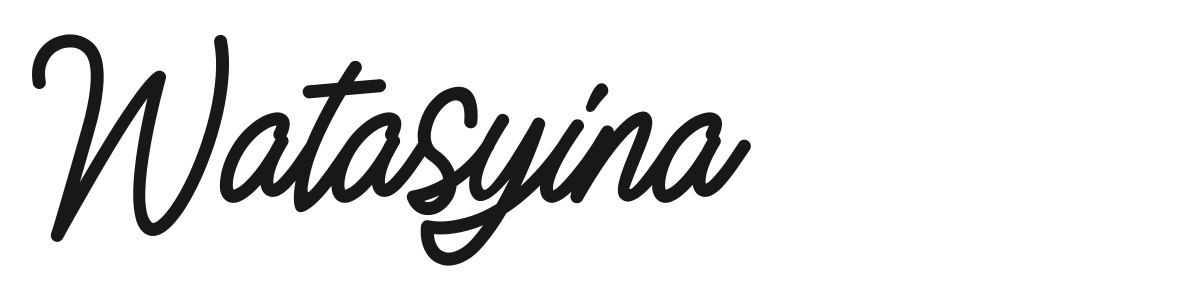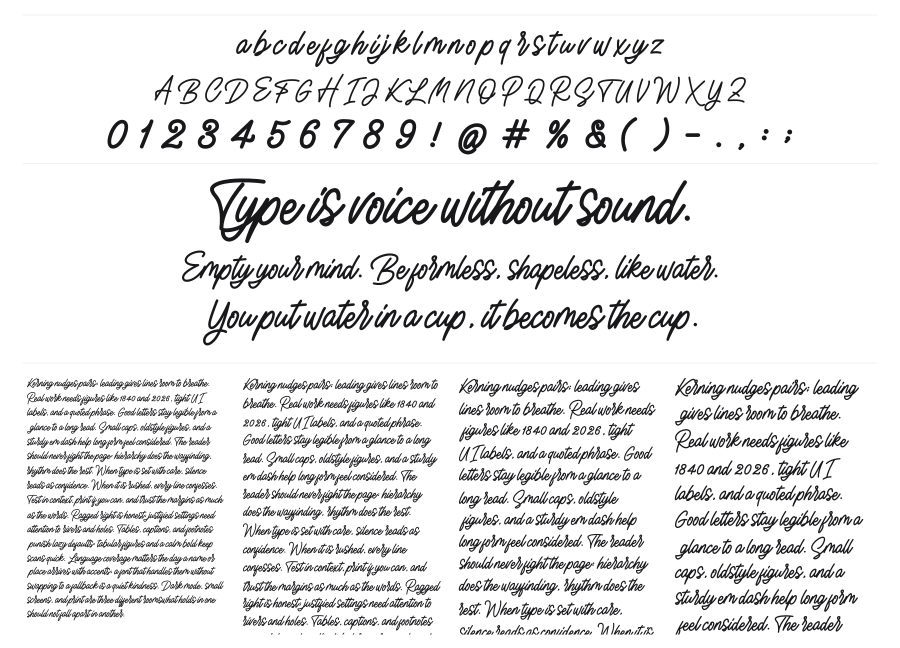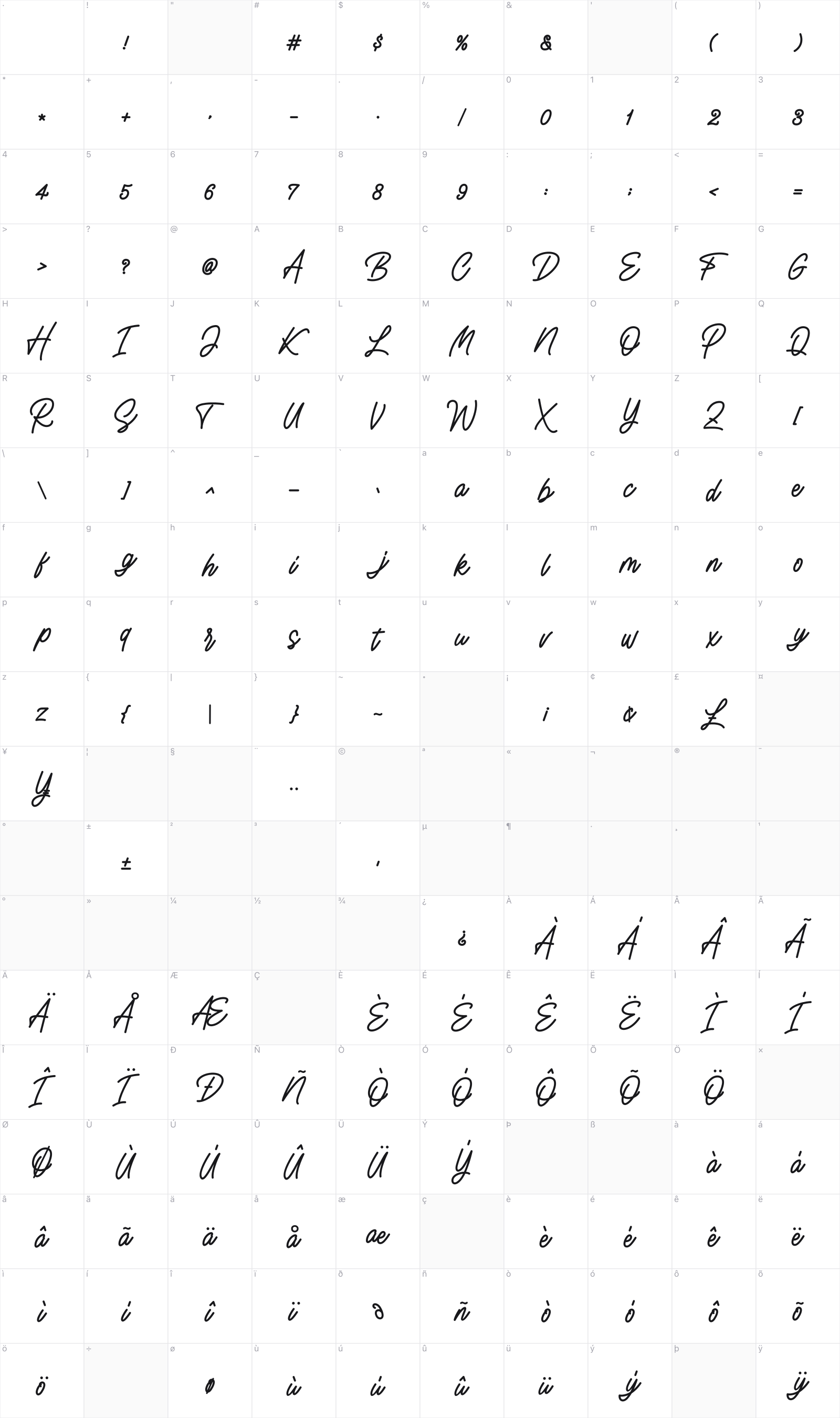
Watasyina
Watasyina is a flowing casual script with the energy of quick, confident handwriting. Looping ascenders and rhythmic baseline movement give it a natural, spontaneous feel without sacrificing legibility at display sizes. It works well for branding, packaging, and any context that needs a personal, handcrafted touch.